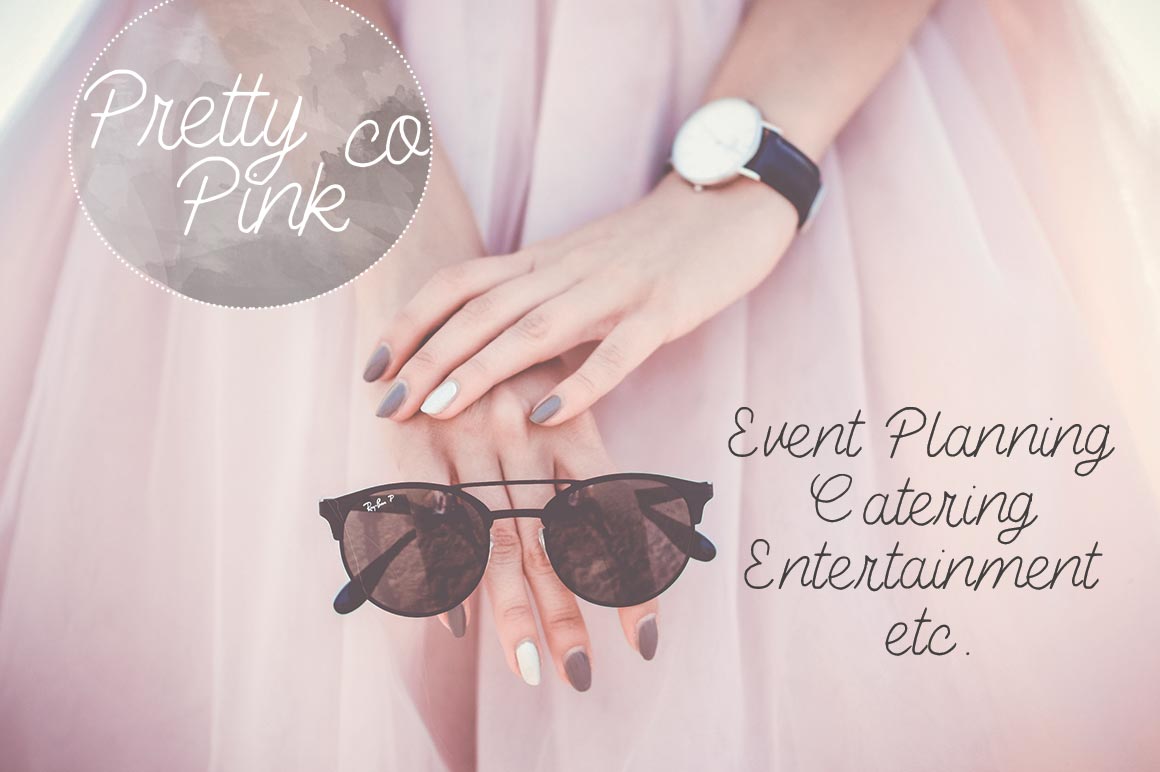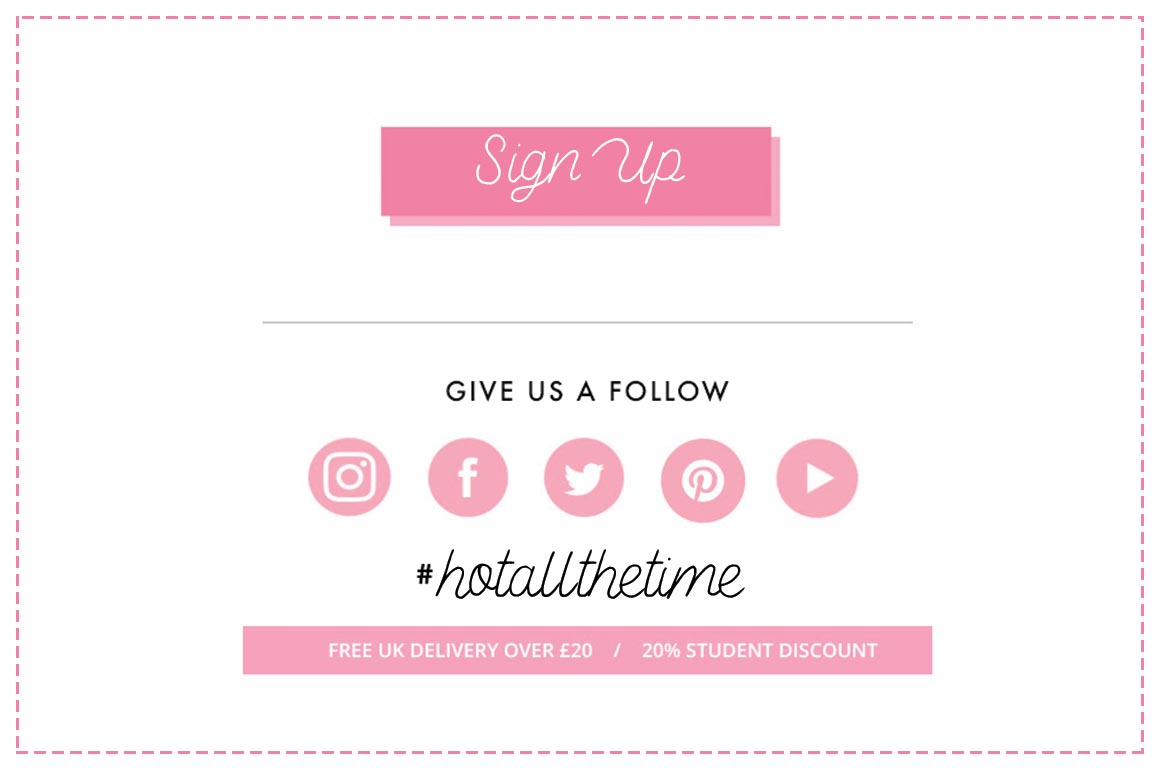
Discover the Charming & Beautiful Font: Elevate Your Designs with Elegance
In the world of typography, fonts play a crucial role in conveying the tone and personality of a design. For designers and crafters looking to add a touch of femininity and sophistication to their projects, the Charming & Beautiful font is an excellent choice. This gorgeously feminine monoline script is ideal for trendy and modern designs, making it perfect for social media graphics, displays, and more.
What Makes Charming & Beautiful Font So Special?
The Charming & Beautiful font is a stunning example of modern script typography. Its monoline design gives it a sleek and elegant look, while its feminine curves and flourishes add a touch of whimsy and charm. This font is perfect for designers who want to create visually appealing and engaging designs that stand out from the crowd.
Key Features of Charming & Beautiful Font
- Feminine Monoline Script: The Charming & Beautiful font features a beautiful, flowing script design that’s perfect for creating elegant and sophisticated text.
- Trendy and Modern: This font is ideal for trendy and modern designs, making it perfect for social media graphics, fashion brands, and lifestyle blogs.
- Easy to Read: Despite its elegant design, the Charming & Beautiful font is easy to read, making it perfect for body text and captions.
- Multilingual Support: This font supports multiple languages, making it a great choice for designers who work with international clients.
Use Cases for Charming & Beautiful Font
The Charming & Beautiful font is incredibly versatile and can be used in a variety of design projects, including:
- Social Media Graphics: Add a touch of elegance to your social media graphics, including Instagram posts, Facebook headers, and Twitter graphics.
- Branding and Packaging: Use the Charming & Beautiful font to create stunning brand identities, including logos, business cards, and packaging.
- Fashion and Beauty: This font is perfect for fashion and beauty brands, adding a touch of sophistication and glamour to their designs.
- Wedding and Event Design: The Charming & Beautiful font is also perfect for wedding and event designs, including invitations, programs, and signage.
Tips for Using Charming & Beautiful Font
To get the most out of the Charming & Beautiful font, here are a few tips to keep in mind:
- Pair with Bold Fonts: Pair the Charming & Beautiful font with bold, sans-serif fonts to create a striking contrast.
- Use for Headings: Use the Charming & Beautiful font for headings and titles to add a touch of elegance to your designs.
| Font Name | Charming & Beautiful Font |
| Author | Salt and Pepper Fonts |
The Charming & Beautiful font is a stunning addition to any designer’s toolkit. Its elegant, feminine design makes it perfect for trendy and modern designs, while its ease of use and versatility make it suitable for a wide range of projects. Whether you’re a designer, crafter, or DIY enthusiast, this font is sure to add a touch of sophistication and charm to your designs.